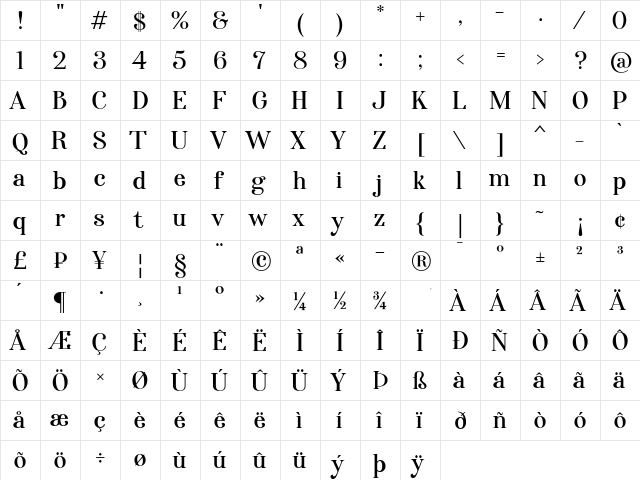
Afterglow Regular
| Foundry | Pavel Korzhenko |
| Designer | Pavel Korzhenko |
Design Context for Afterglow Typeface
Afterglow takes a measured approach to typography — its balanced proportions and neutral character make it a reliable workhorse for both digital and print work.